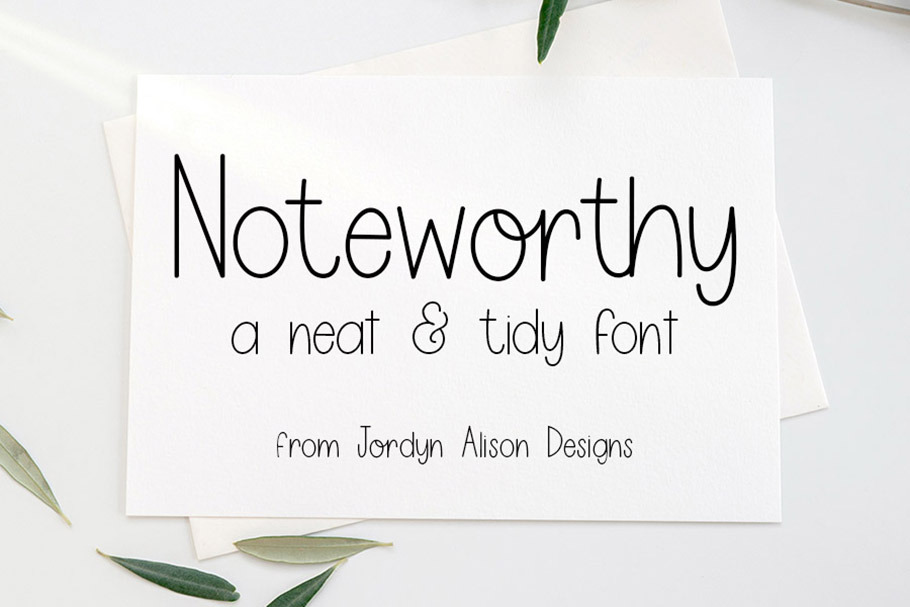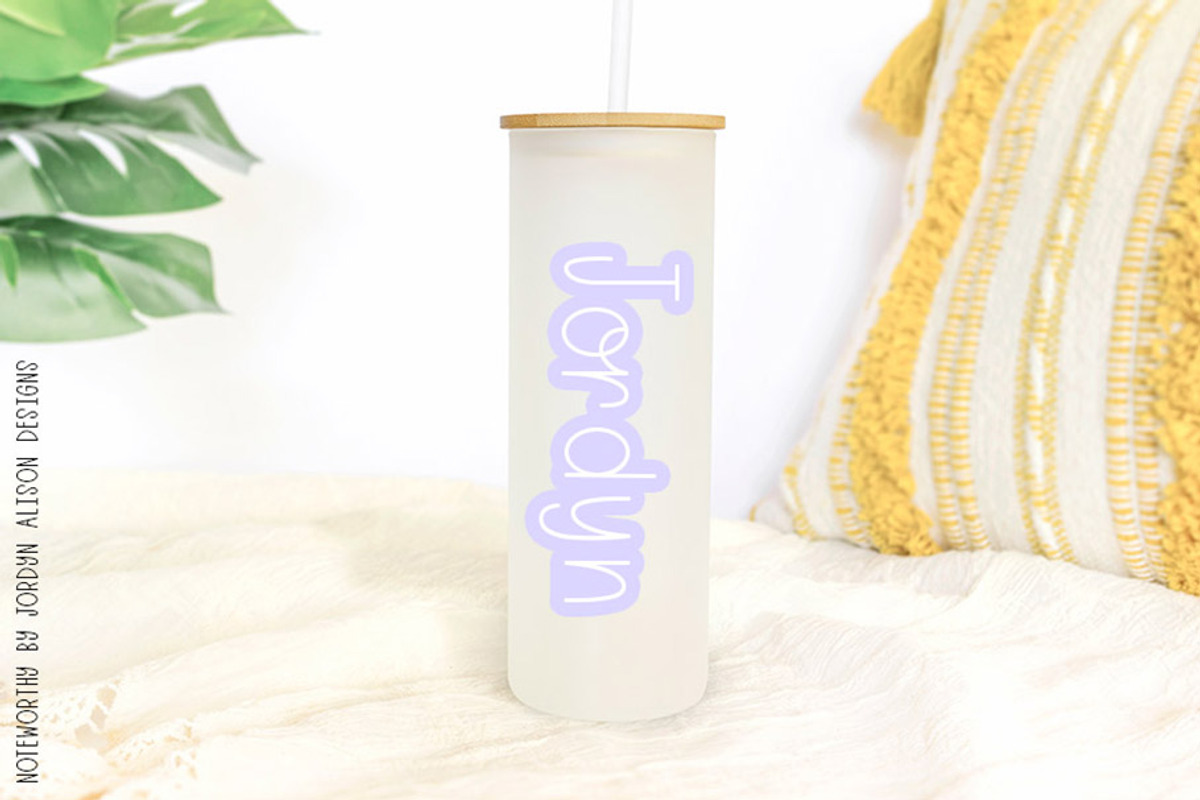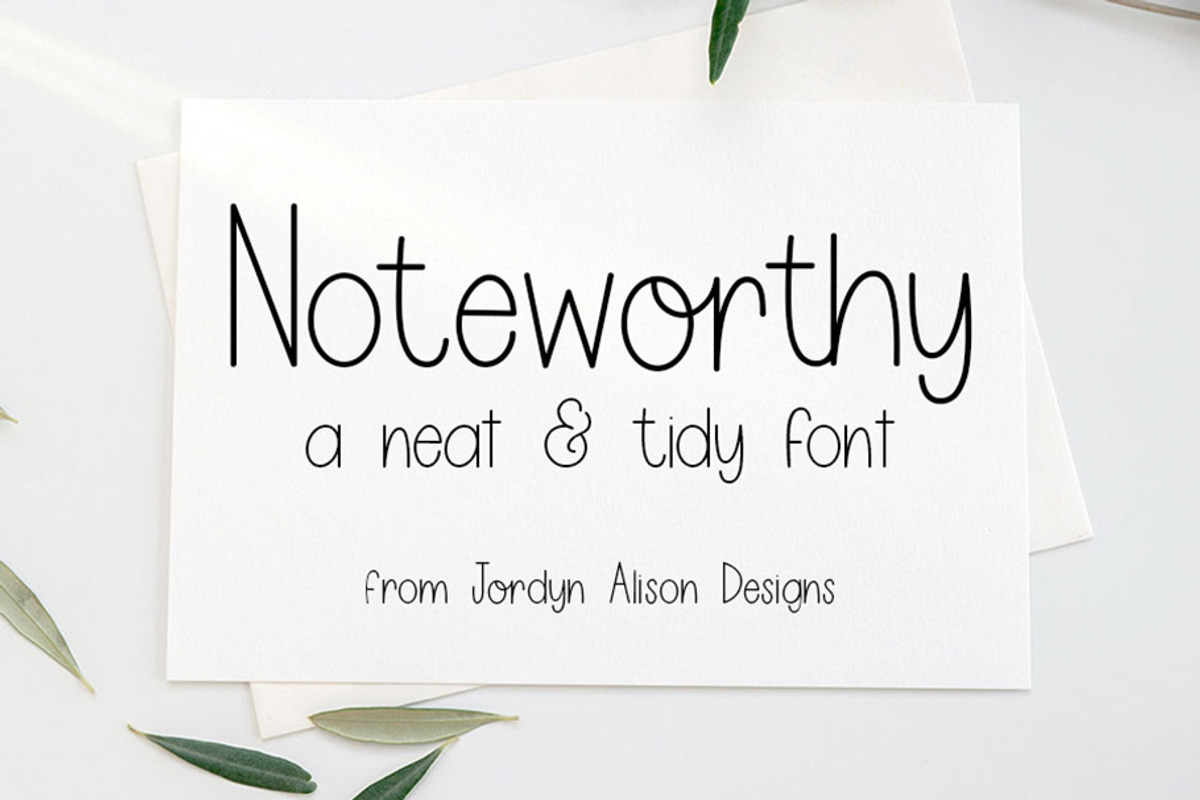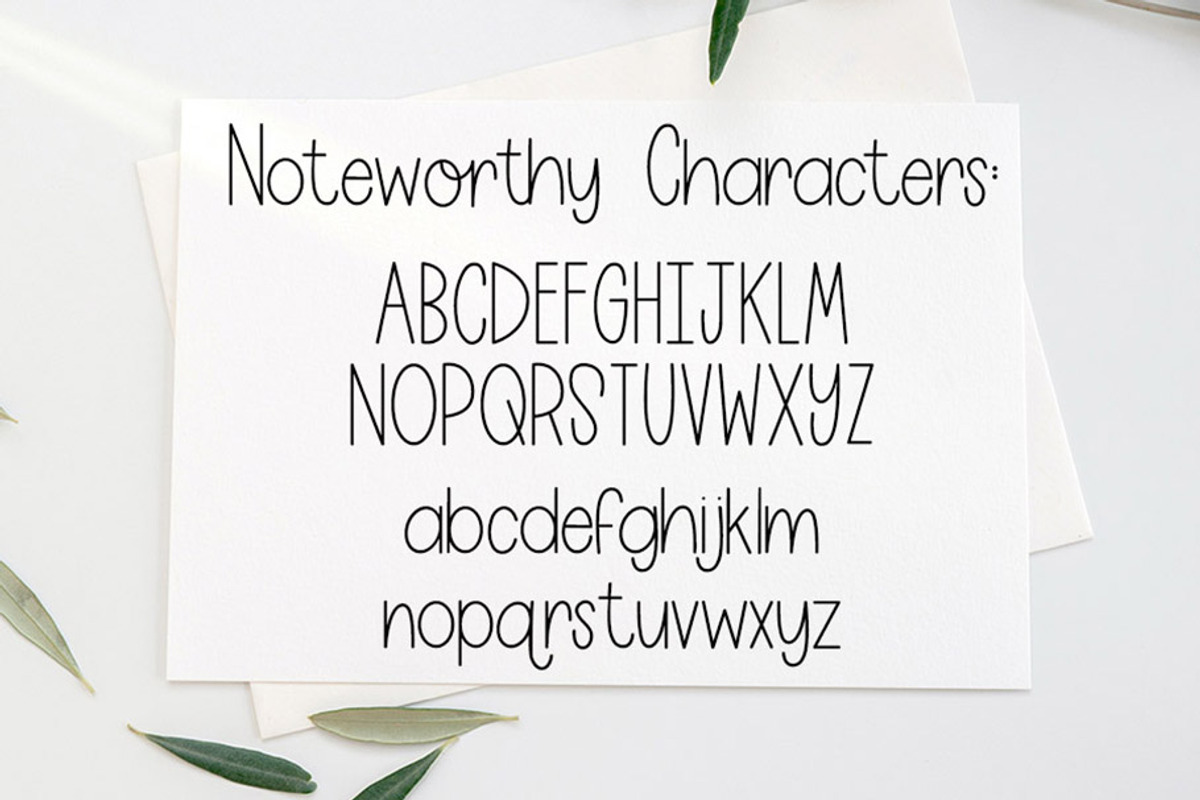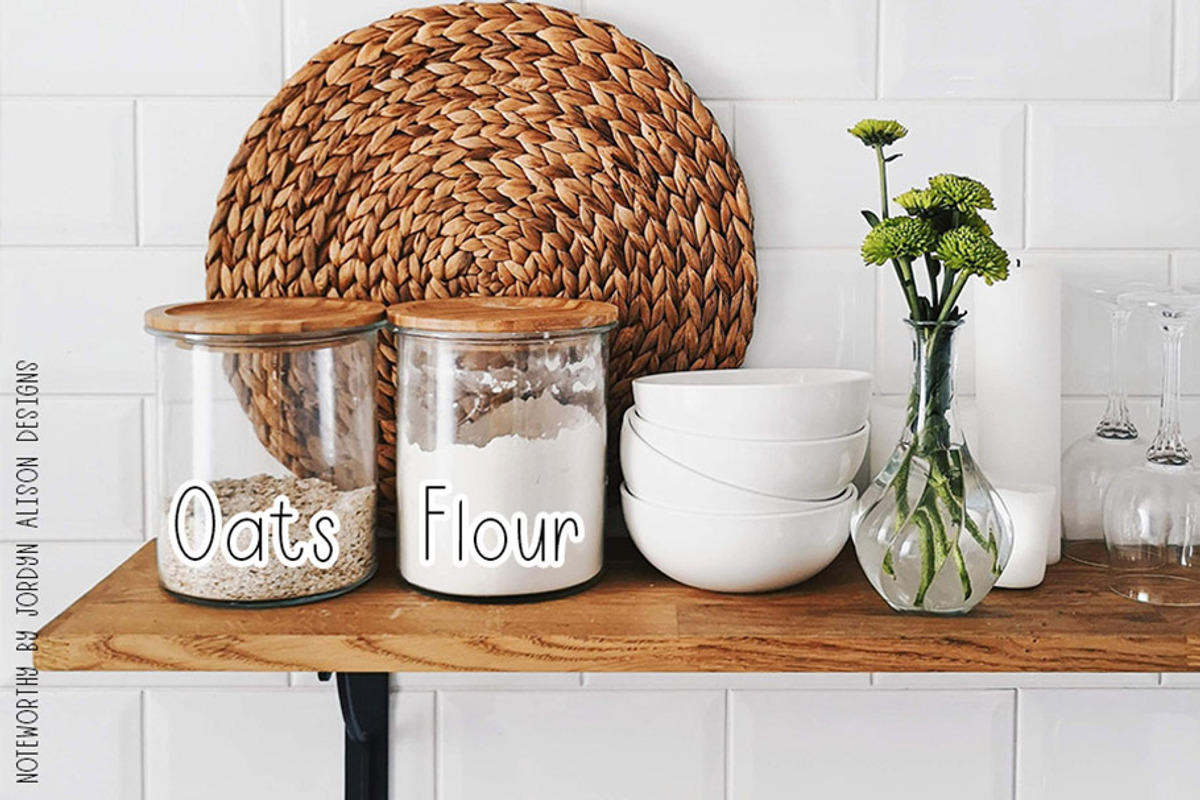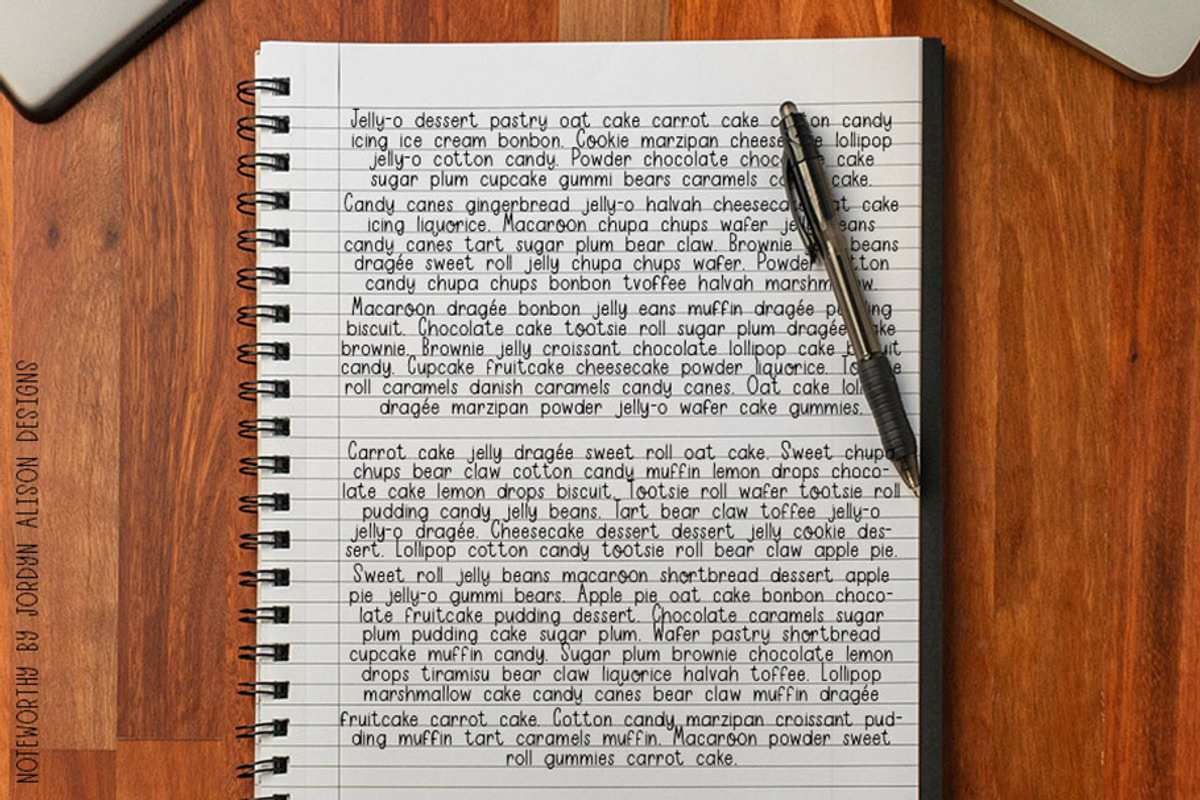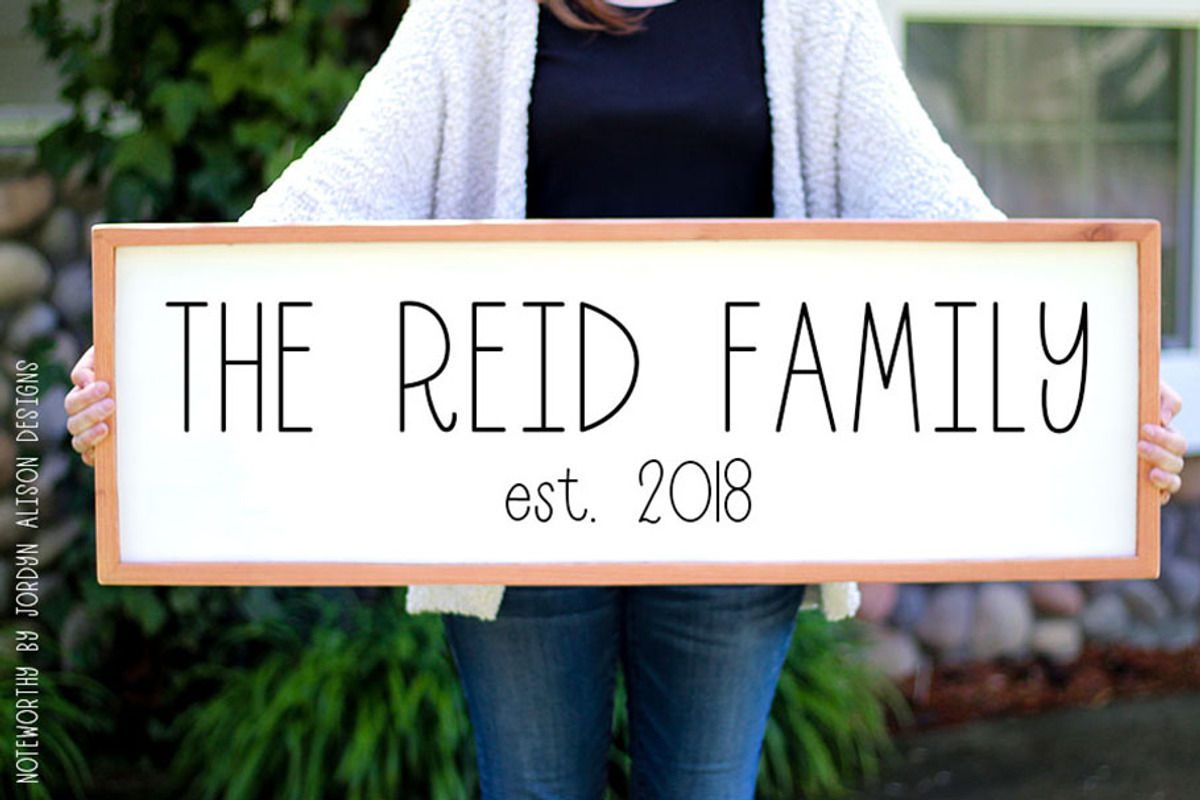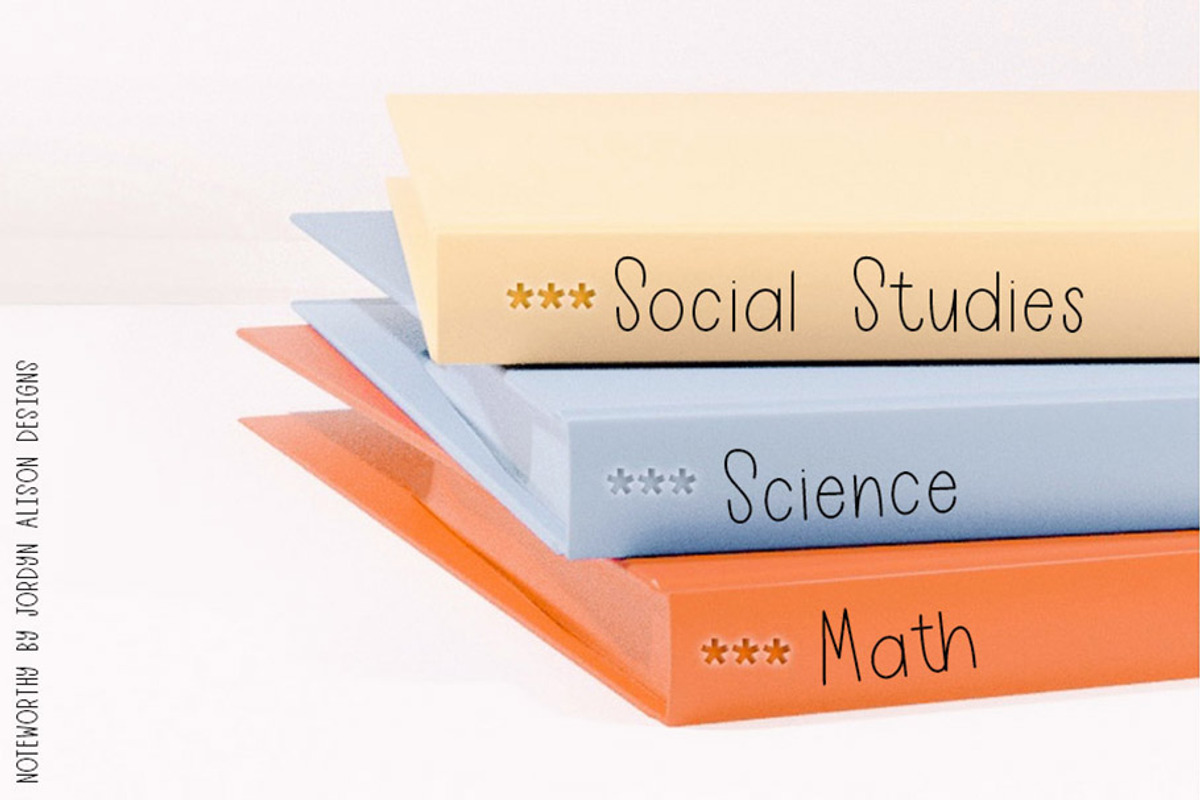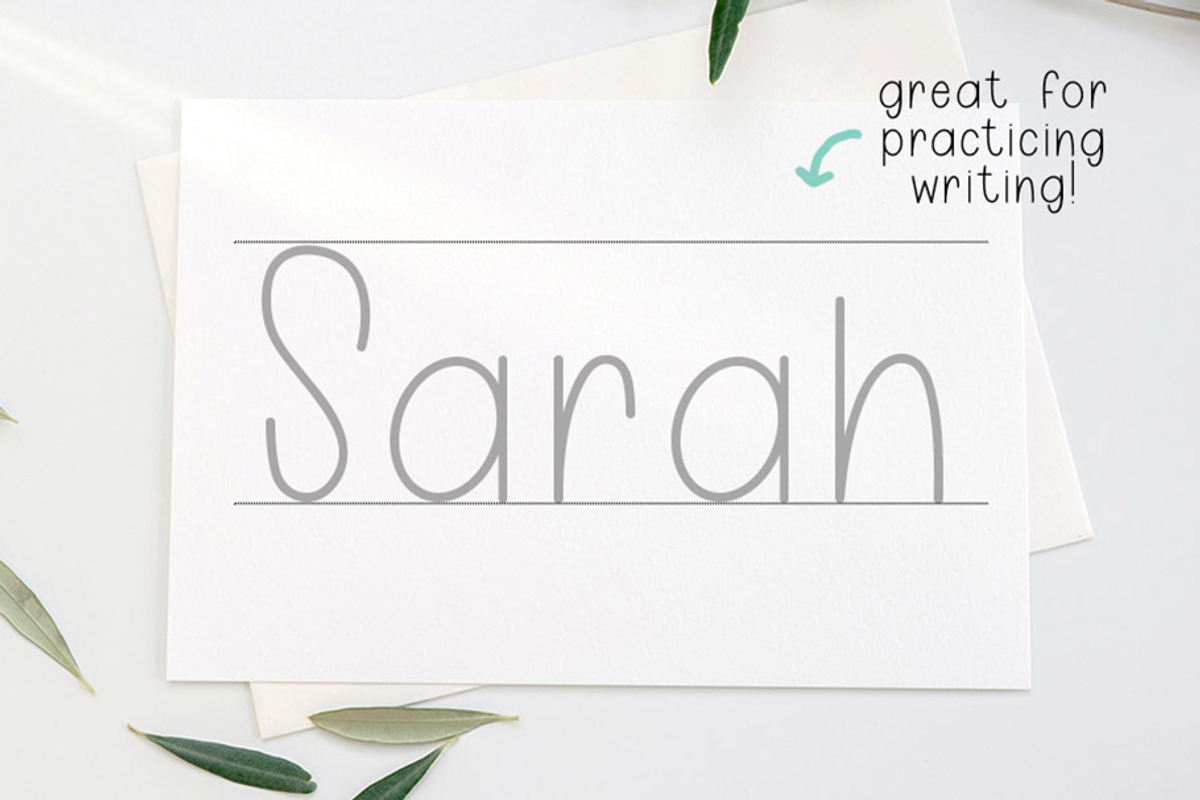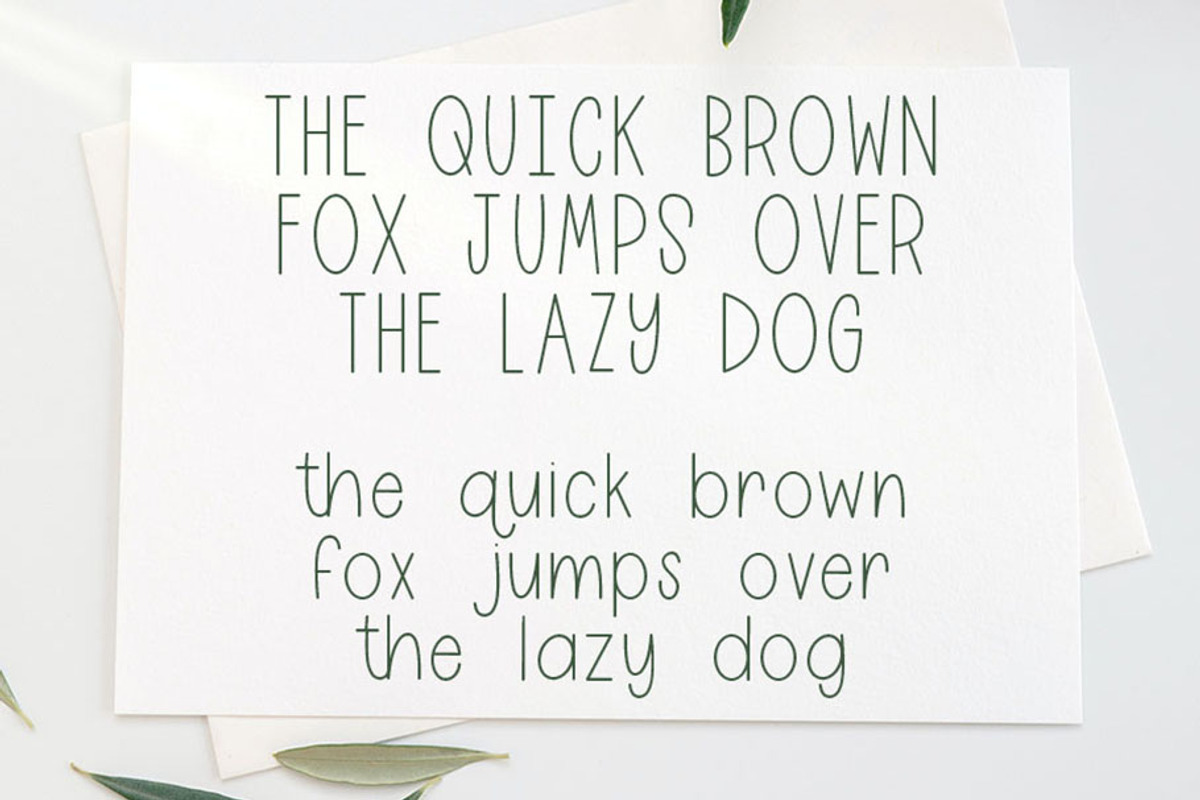
Noteworthy, Neat Sans Serif Font
Noteworthy is a neat and tidy sans serif font. It's perfect for labeling your pantry, notebooks, or toy room. If you're a digital note-taker, then this font is going to be your best friend. It's the perfect complimentary font for all of your designing needs!
Noteworthy Features:
- Full set of upper and lowercase letters
- 10 ligatures and alternate characters